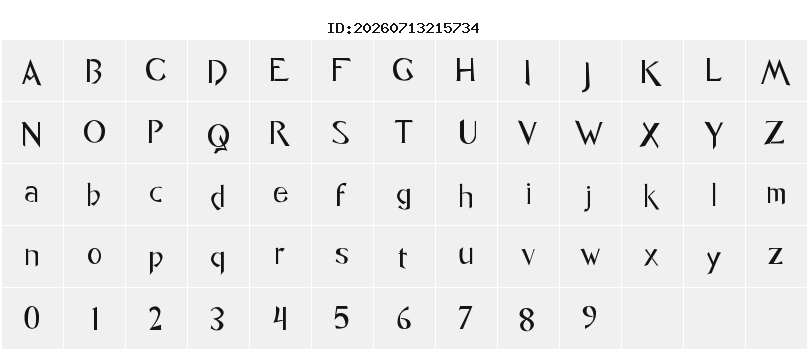
Caligo Preview
• Font Name: Caligo
• Full Font Name: Caligo Regular
• PostScript Name: Caligo-Regular
About Caligo.ttf
Caligo.ttf is a modern, elegant sans-serif font designed for ultimate readability and visual harmony. Perfect for branding, headlines, web design, and print materials.